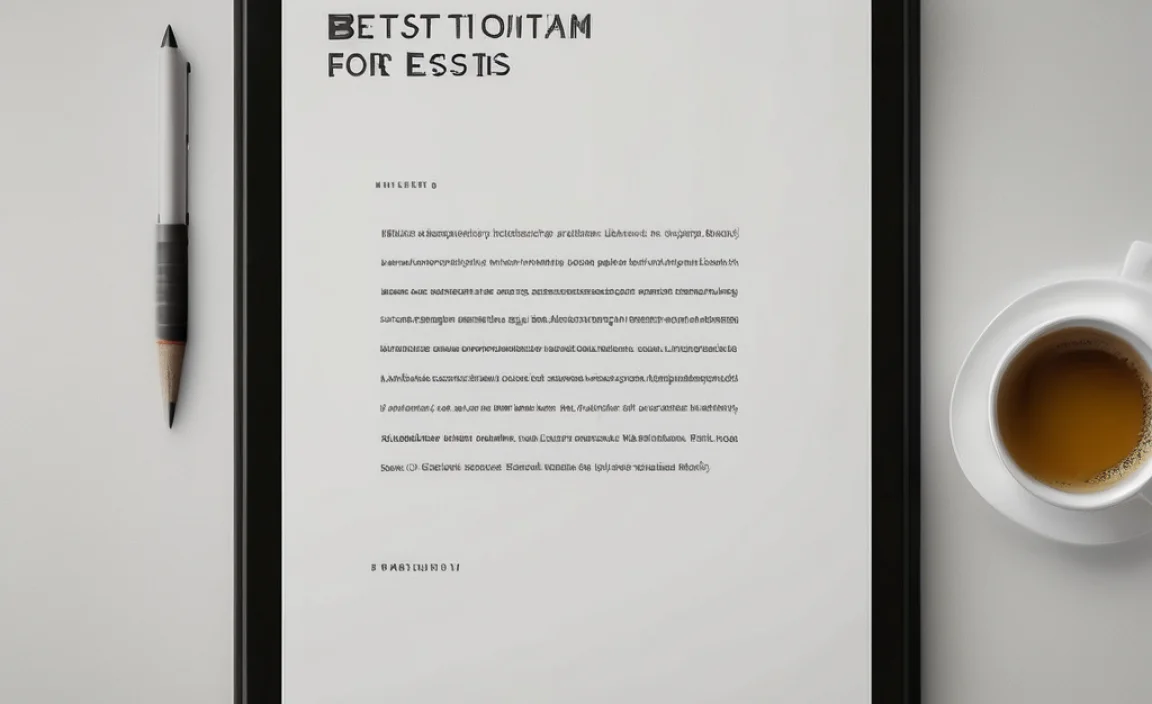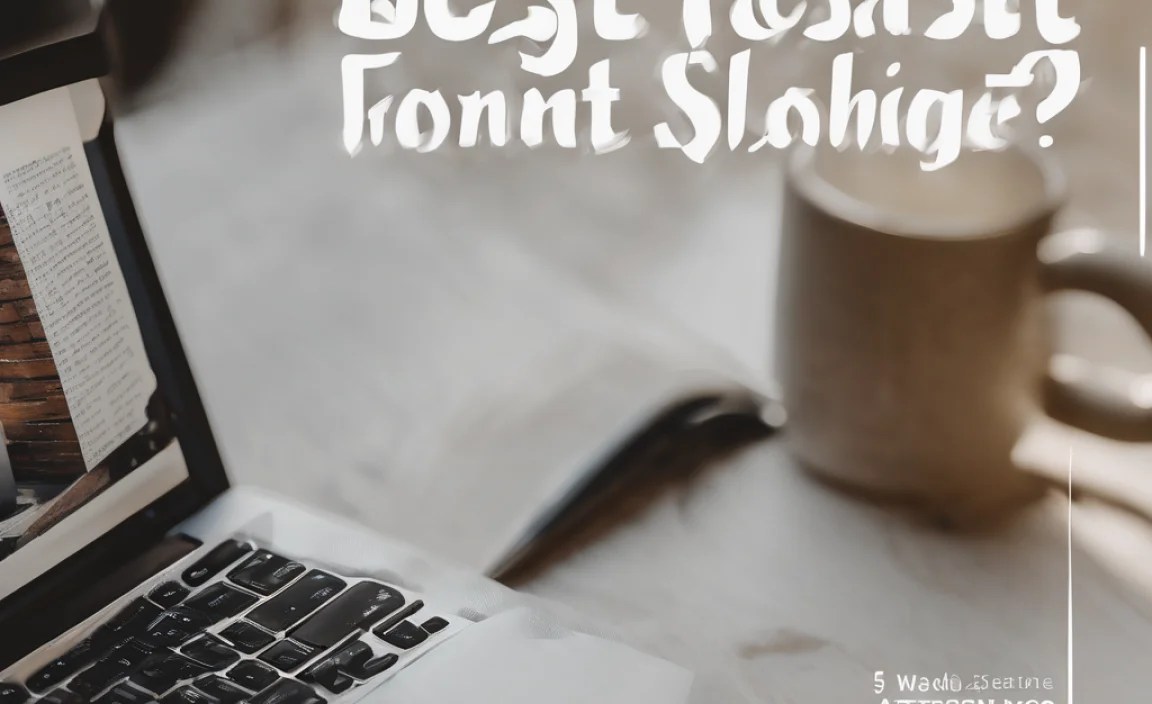
Have you ever written an essay and wondered if the font matters? Choosing the right font can make a big difference. It can help your essay look neat and easy to read. But what is the best font for essays? Let’s find out!
Key Takeaways
- The best font for essays is usually Times New Roman.
- Fonts affect how easy an essay is to read.
- Size 12 font is commonly preferred for essays.
- Serif fonts are often used in academic writing.
- Sans-serif fonts can be hard to read in long texts.
Why Font Choice is Important
Choosing the best font for essays is like choosing the right clothes for an event. You want to make a good impression, right? Fonts help set the tone and style of your writing. A clean and easy-to-read font makes your essay more enjoyable to read. This can even affect the grade you receive! Teachers often prefer certain fonts because they are clearer and look professional.
- Fonts make your essay look tidy.
- Proper fonts show your attention to detail.
- A good font helps readers focus on content.
- Fonts can make reading longer texts easier.
- Professional fonts can improve essay presentation.
Using the right font shows that you care about your work. It’s like wrapping a present nicely; people are excited to open it. The best font for essays, like Times New Roman, is often required in schools. This font is known for being clear and professional. So, when you pick a font, think about how it will look to someone else.
Fun Fact or Stats : Did you know that Times New Roman was created in 1931? It’s still popular today!
What Makes a Font Good for Essays?
Have you ever read something and felt your eyes getting tired? That might be because of the font. A good font for essays is easy to read and looks nice on paper. It should not be too fancy or hard to understand. Teachers like fonts that make reading easier. They look for fonts that are clear and steady, like Times New Roman or Arial.
Serif vs. Sans Serif Fonts
What’s the difference between serif and sans-serif fonts? Serif fonts have little lines at the end of each letter. Sans-serif fonts do not have those lines. Serif fonts, like Times New Roman, are often used in essays. They are easier to read in long papers. Sans-serif fonts are more modern looking but can be harder to read in big blocks of text.
The Right Font Size Matters
Did you know the font size is as important as the font type? Size 12 is the most common for essays. It is not too big and not too small. This size is perfect for making sure your writing is clear and easy to read. If you choose a font size that is too small, readers might struggle to see your words.
Popular Fonts for Essay Writing
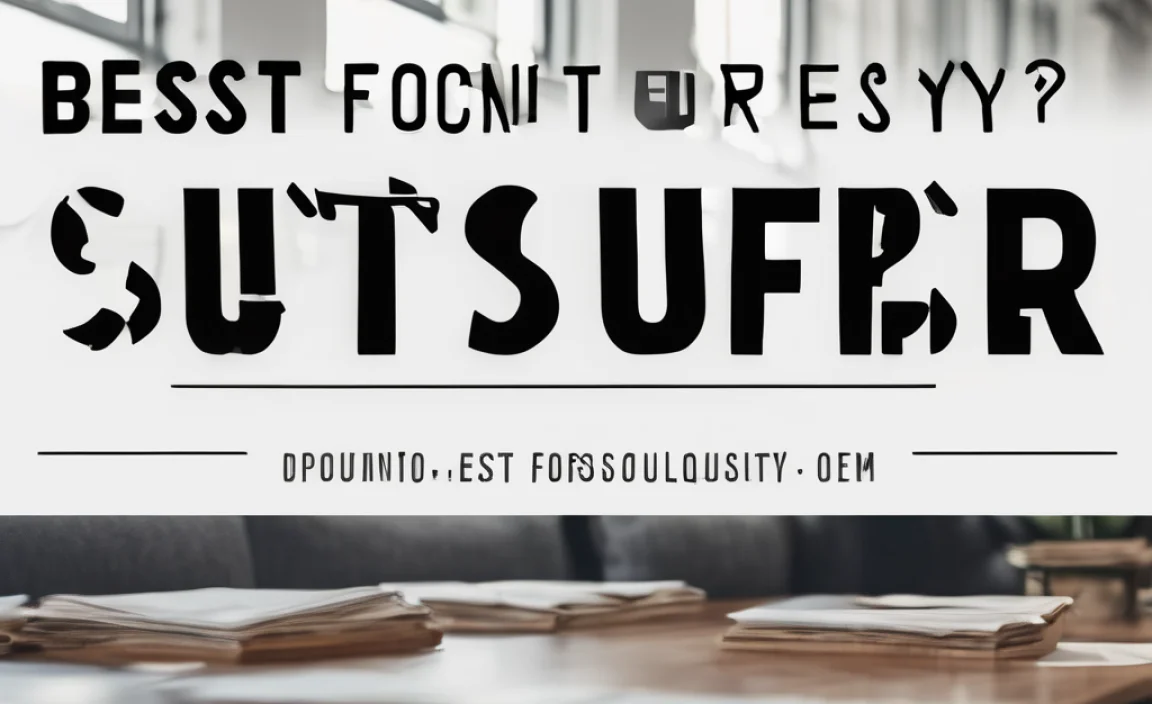
There are many fonts to choose from, but some are more popular than others. The best font for essays is usually Times New Roman. It is a serif font that many people like because it’s readable. Arial is another popular choice. It is a sans-serif font and looks modern. Both of these fonts are often used in schools and businesses.
- Times New Roman is a classic choice.
- Arial is simple and modern.
- Calibri is often used for digital writing.
- Cambria is another serif option.
- Georgia is stylish but easy to read.
These fonts are commonly used because they are easy on the eyes. They help your reader focus on the words and not the style. Remember, the goal is to make your essay as readable as possible. If you’re unsure, always ask your teacher which font is preferred.
Fun Fact or Stats : Arial is the default font for many email services!
Why Times New Roman is a Favorite
Why do so many people love Times New Roman? It’s a font that has been around for a long time. It looks professional and is very easy to read. Many schools and businesses recommend it because it presents information clearly. Just like a classic car, Times New Roman never goes out of style.
Comparing Arial and Calibri
Both Arial and Calibri are sans-serif fonts. They look similar but have some differences. Arial is more common in print, while Calibri is often used for digital documents. Both are clean and easy to read. However, for essays, some teachers prefer Times New Roman. Arial and Calibri are good for presentations and emails.
Should You Try Georgia?
Georgia is a beautiful font that is easy to read on screens and paper. It is a serif font, like Times New Roman. Georgia looks a bit modern but still clear. It can be a good choice if you want something a little different but still professional.
Choosing the Right Font Size
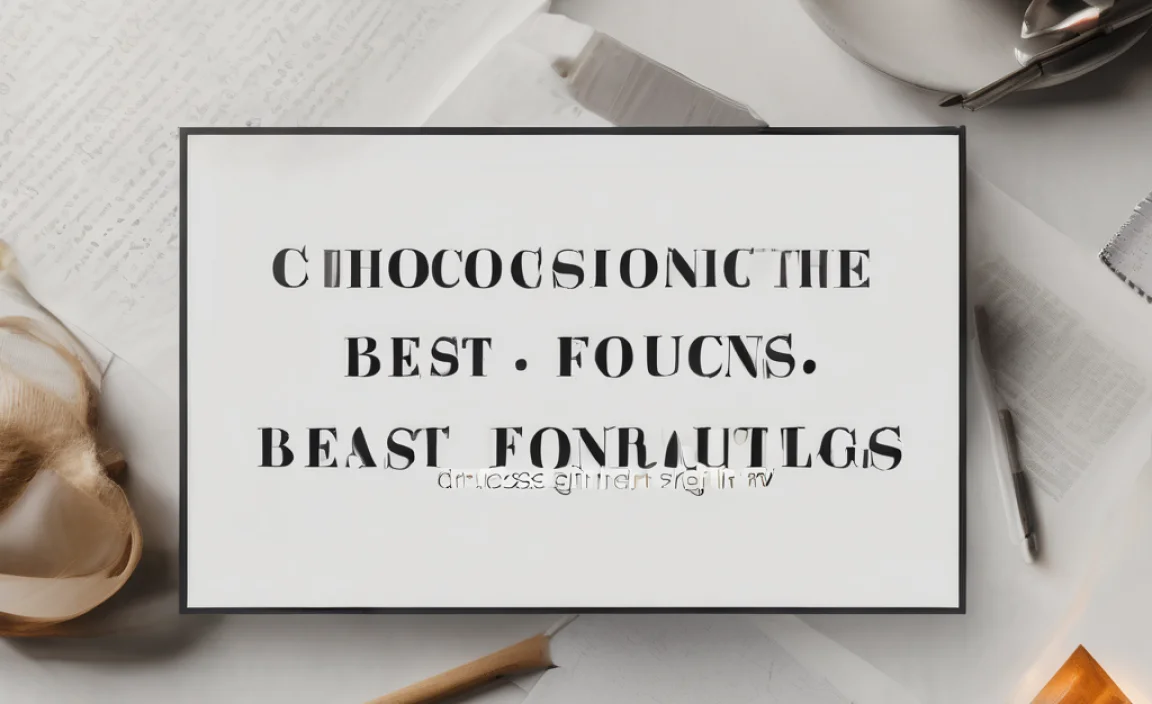
Picking the right font size is just as important as selecting the right font. Most essays use size 12 for the font. This size is comfortable for reading. It is not too big, which might look unprofessional, and not too small, which can be hard to read. Think about it like Goldilocks finding the perfect porridge—just right!
- Size 12 is the standard for essays.
Question: Can I use Arial for my essay?
Answer: Yes, Arial is a common choice for essays. It is a sans-serif font that looks modern. However, many teachers prefer Times New Roman for its readability and professional appearance.
Question: What if my school has specific font guidelines?
Answer: If your school has specific font guidelines, always follow them. Using the recommended font shows responsibility and helps you avoid losing points. Check with your teacher if you are unsure about which font to use.